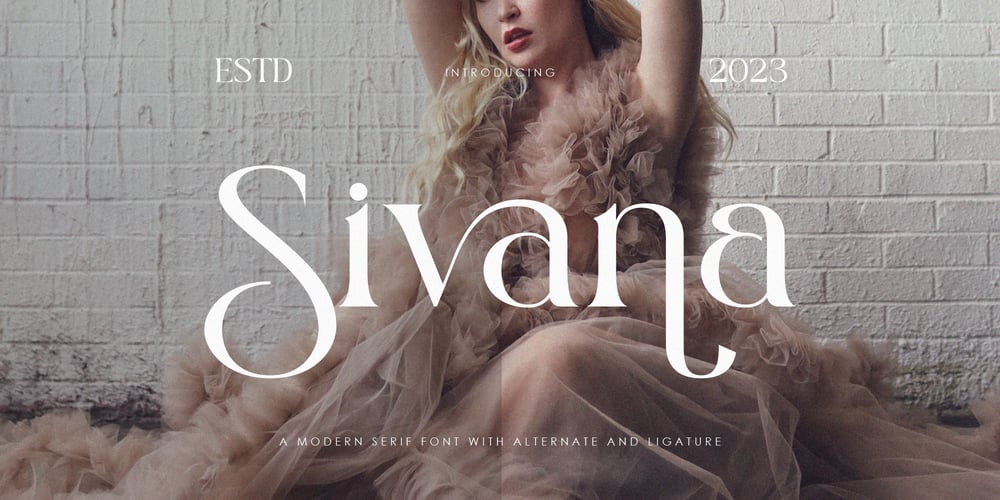
Sivana Font Family was designed by Muflihin Nurhabib and published by Muflieart. Sivana contains 1 styles and family package options. Introducing Sivana: An elegant and modern serif typeface. With its modern and minimalist appearance, CAKELAN brings a luxurious and clean style to your projects such as websites, modern logos, branding identities, social media quotes, wedding stationery, and various other needs!Sivana displays the capital letters A to Z which are unique and classy, of course because they are made with great care so that they become beautiful fonts and can be adapted to various large projects that you want.